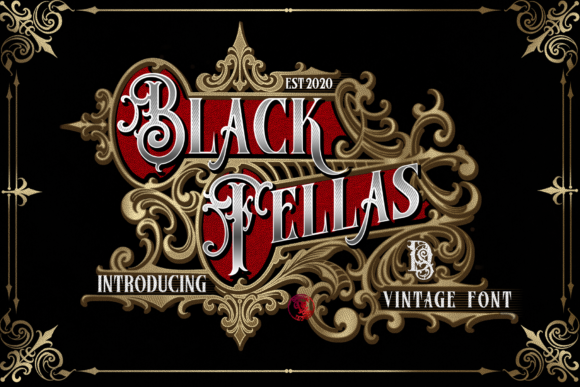
Looking for the best font for graphic design? Look no further than Black Fellas Font. Created by Dansdesign, this blackletter font is the perfect choice for anyone seeking to create gorgeous and timeless designs.
With its interesting and unique style, Black Fellas Font is sure to make your designs stand out. Its incredibly stylish look will captivate your audience and leave a lasting impression. Whether you're creating a logo, a quote, an invitation, a business card, or a presentation, this font will elevate your design to the next level.
Infused with creativity and emotion, Black Fellas Font allows you to express your unique personality and make a statement. Its bold and elegant appearance exudes confidence and sophistication, making it the perfect choice for any project that requires a touch of class.
Not only does Black Fellas Font offer stunning visual appeal, but it also delivers exceptional functionality. Its versatility allows it to be used in various design applications, ensuring that it meets all your creative needs. From vintage-inspired designs to modern aesthetics, this font adapts effortlessly to any style.